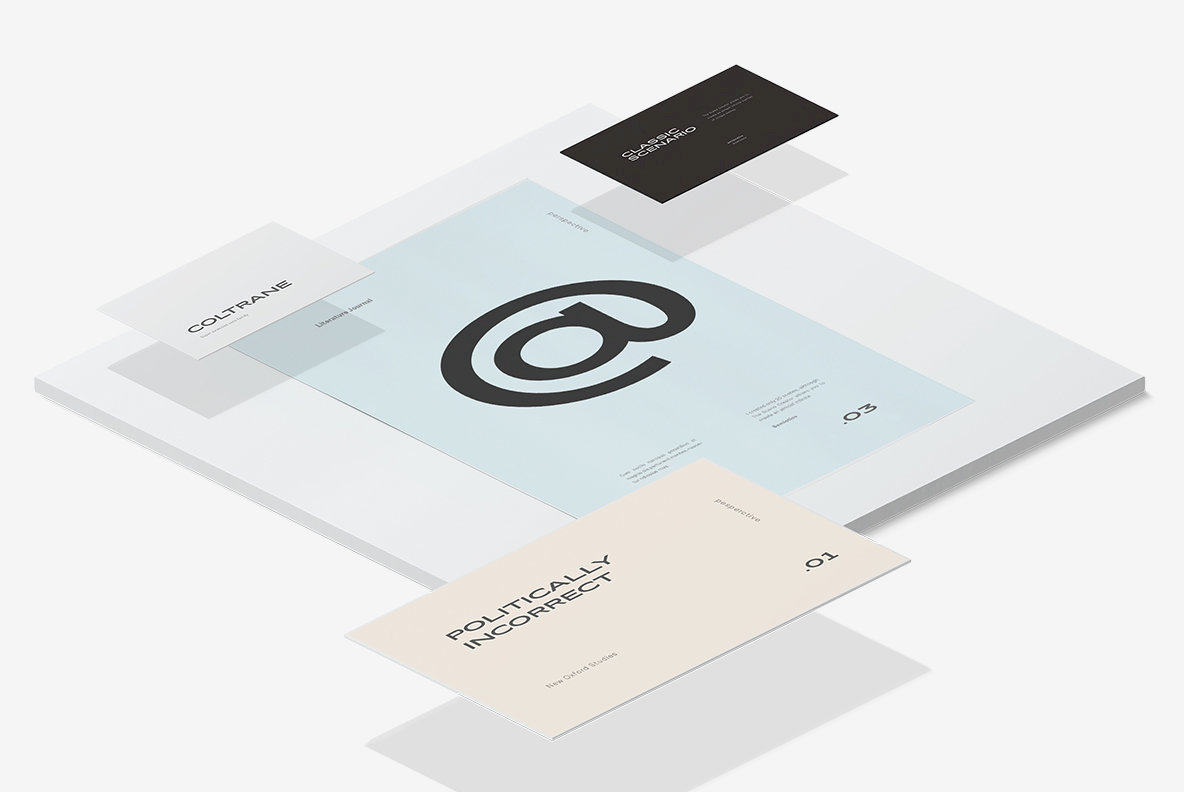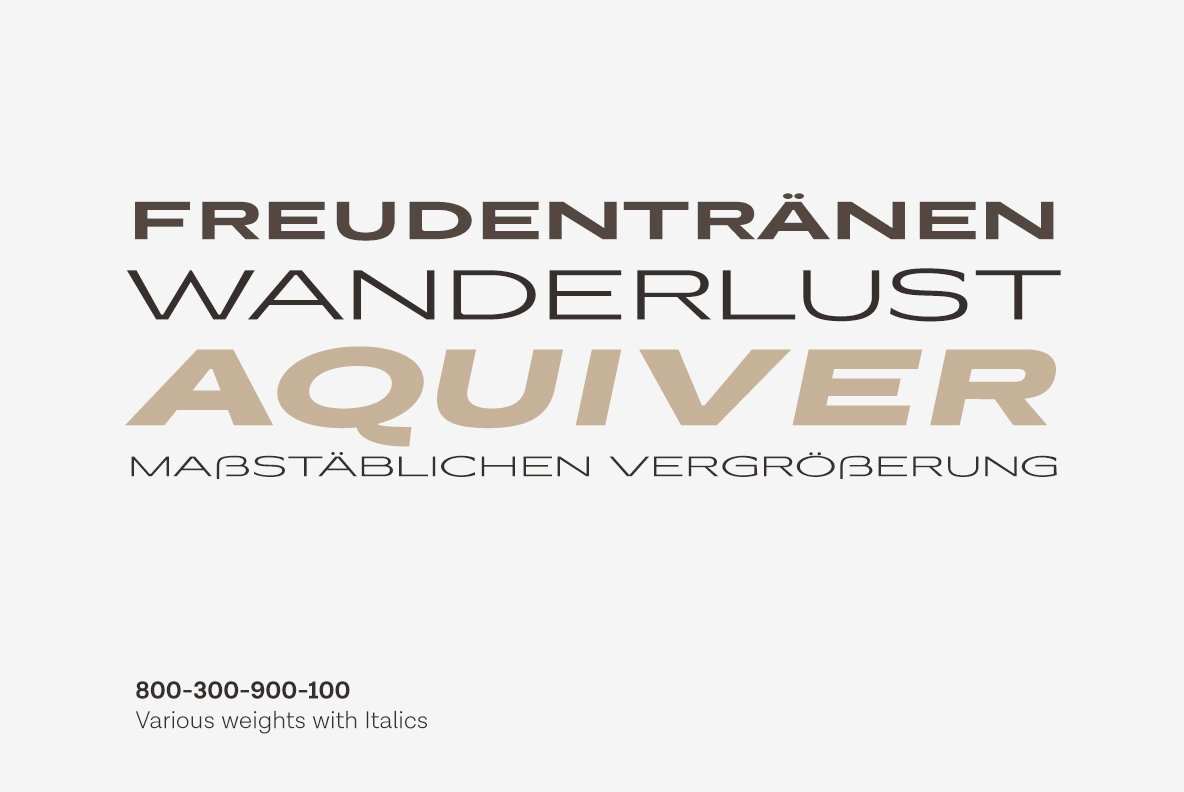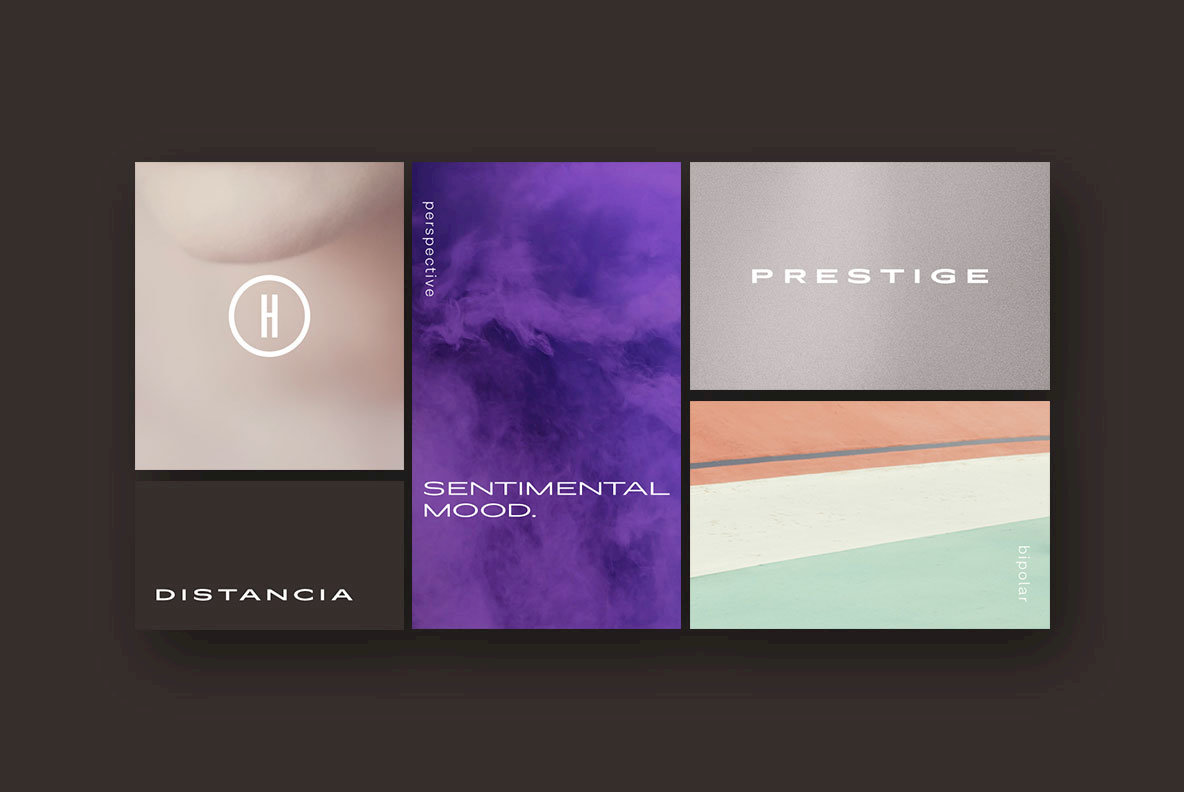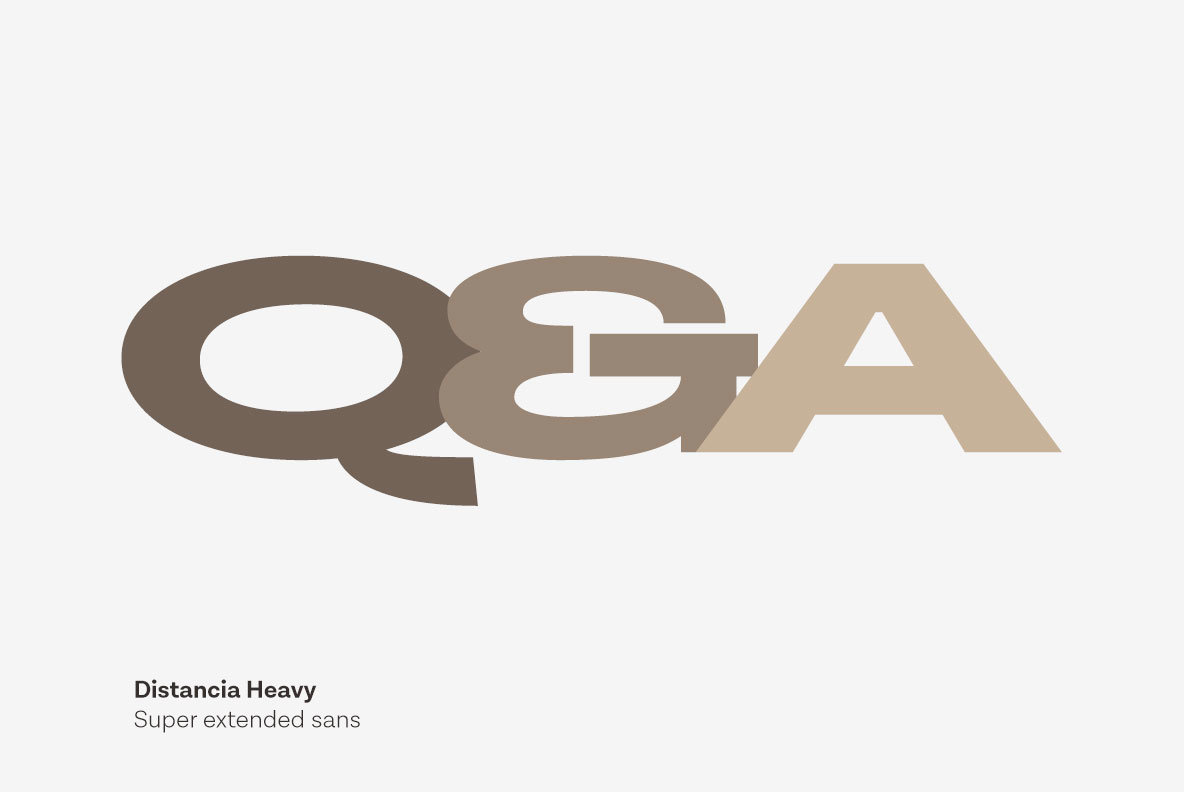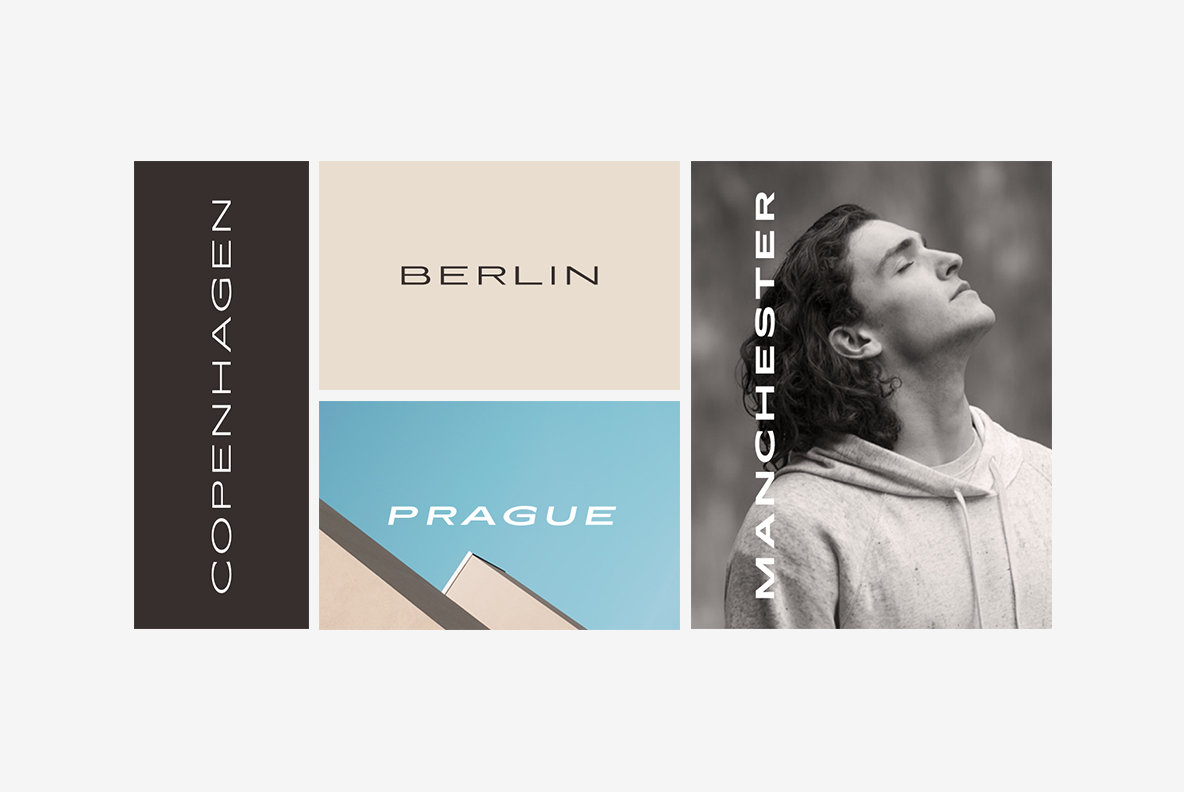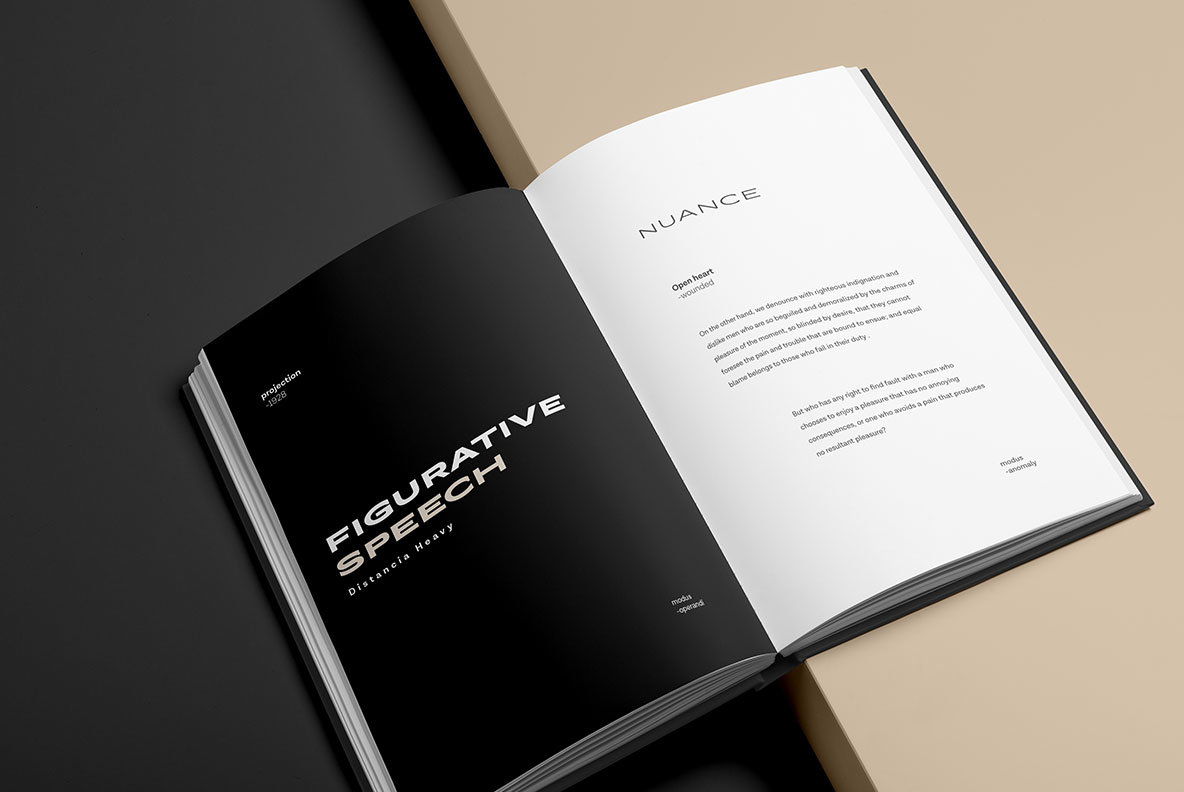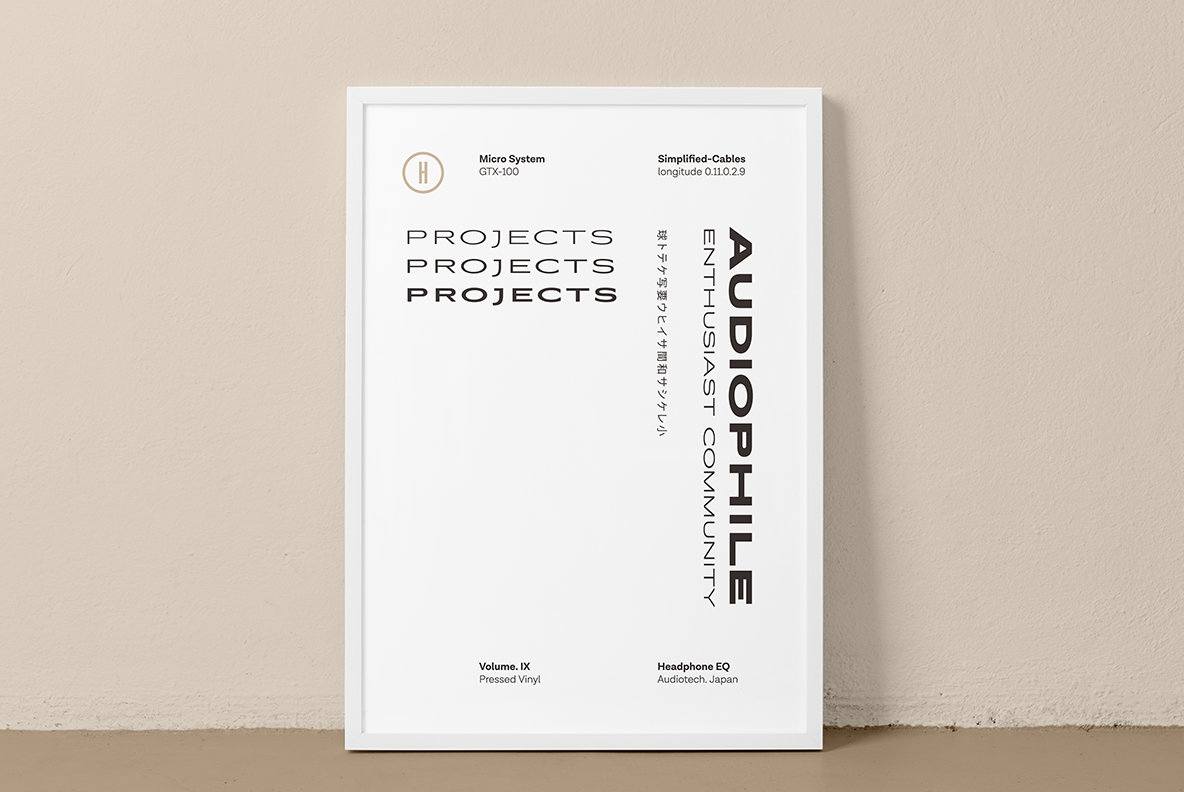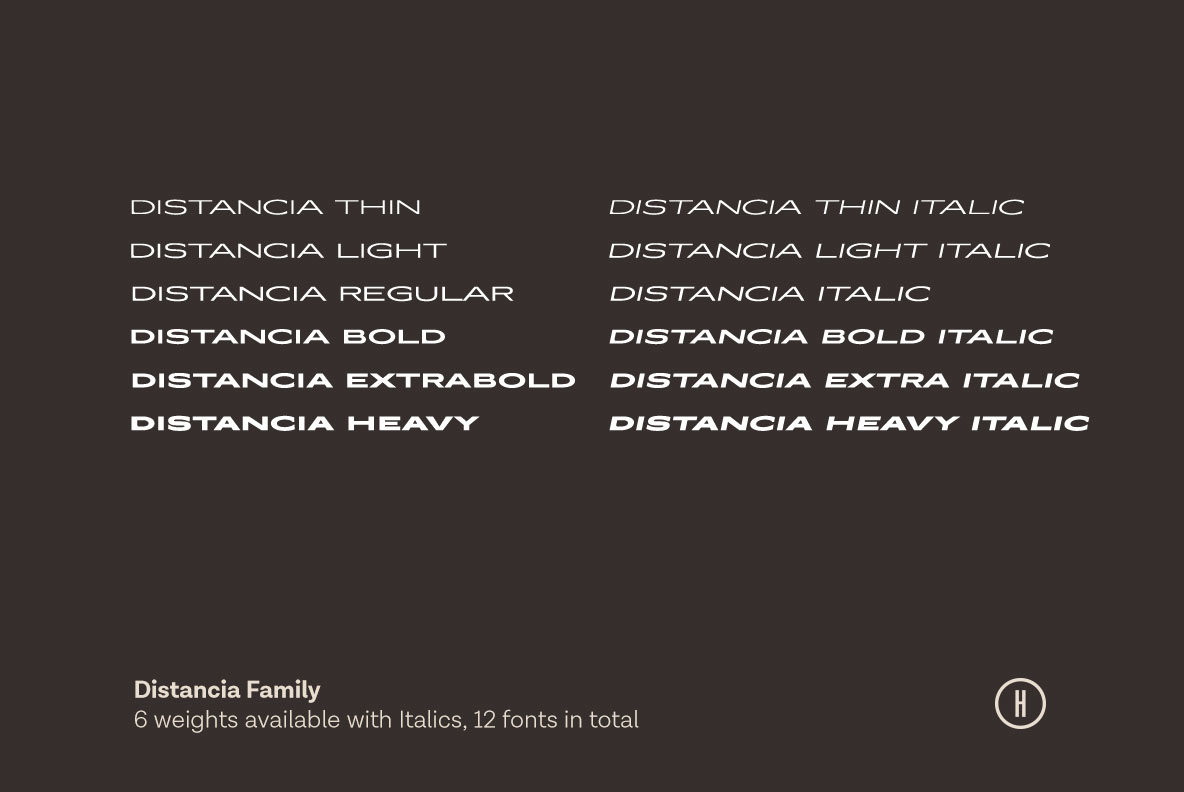
Distancia: A Retro-Inspired Extended Sans Serif
Drawing inspiration from the sleek lines and enduring allure of 70's sports car advertisements, Distancia by Hindia Studio combines nostalgia with contemporary design. This super-extended sans serif family encompasses six varying weights, each crafted to evoke elegance and offer a laid-back visual experience. With its open, expansive proportions, Distancia effortlessly injects warmth and modern flair into any project, making it a captivating choice for both digital and print designs.
• Includes 6 weights plus Italics, totaling 12 fonts
• Titling/All Caps design for striking headlines
• Full set of Uppercase letters, Numbers, and Punctuations
• Supports Multilingual Characters with Accents